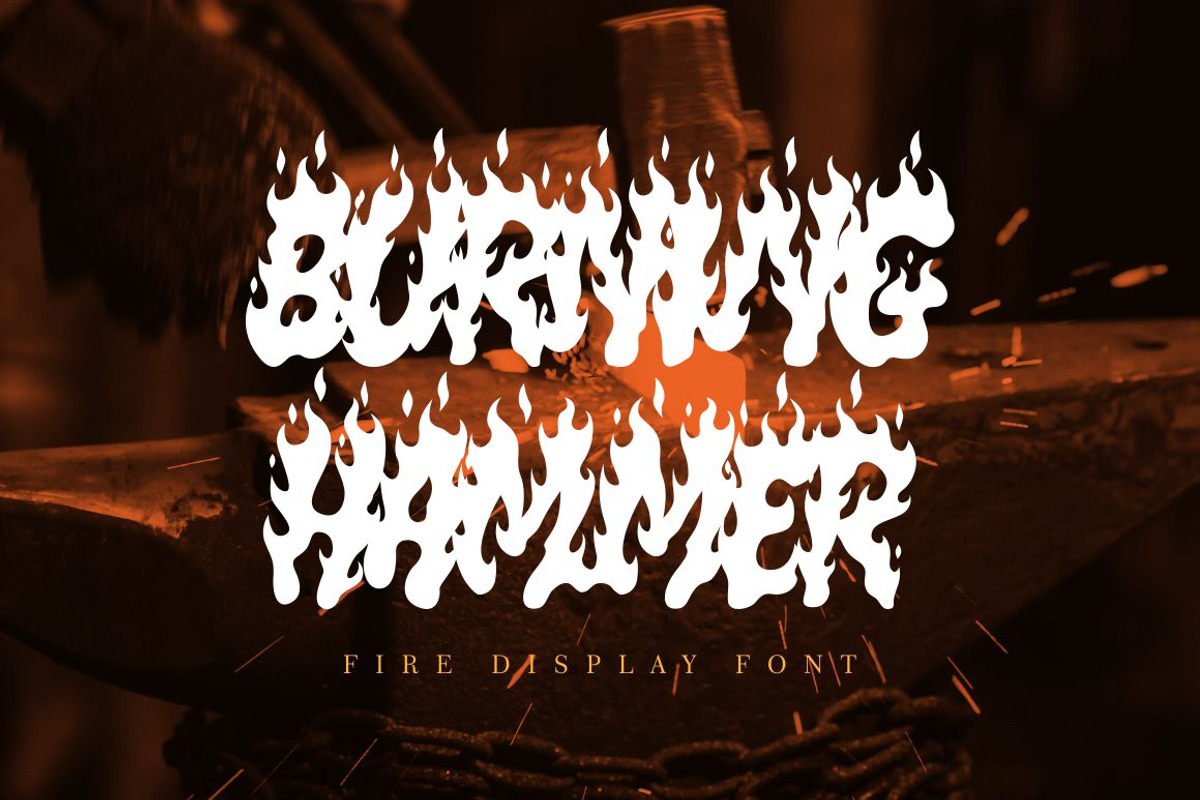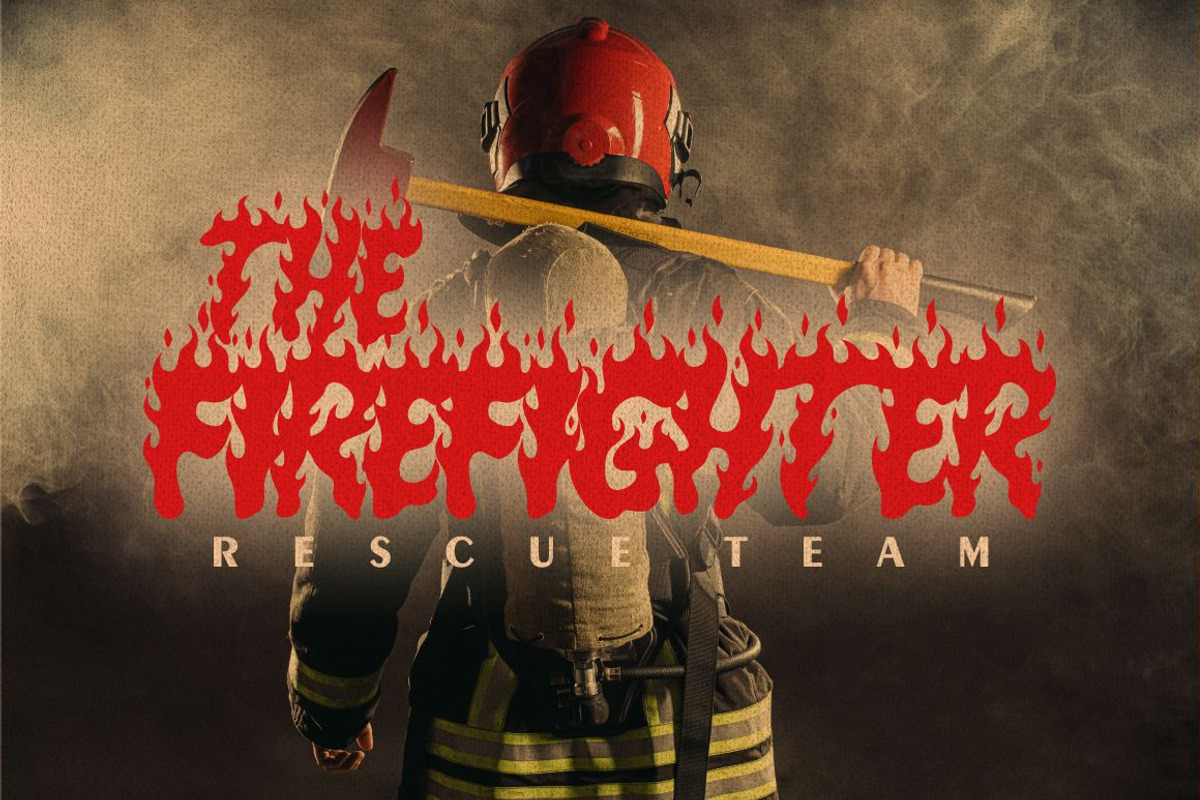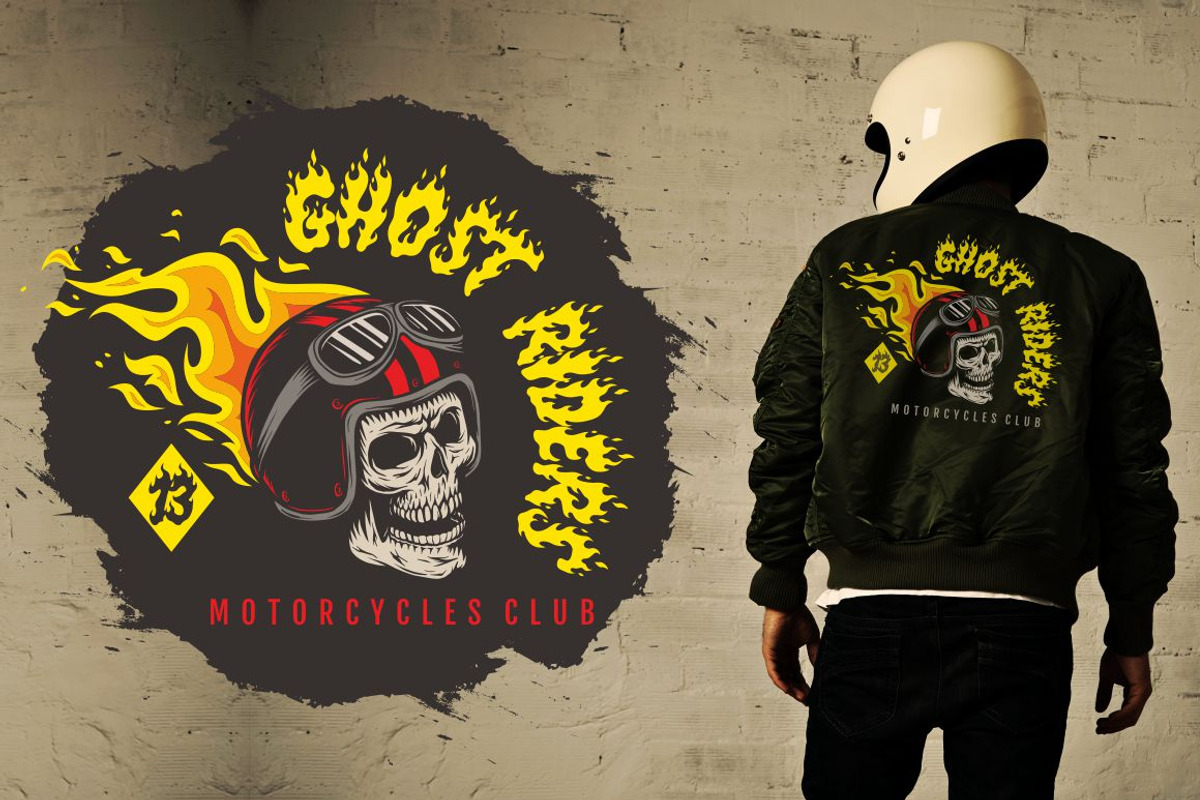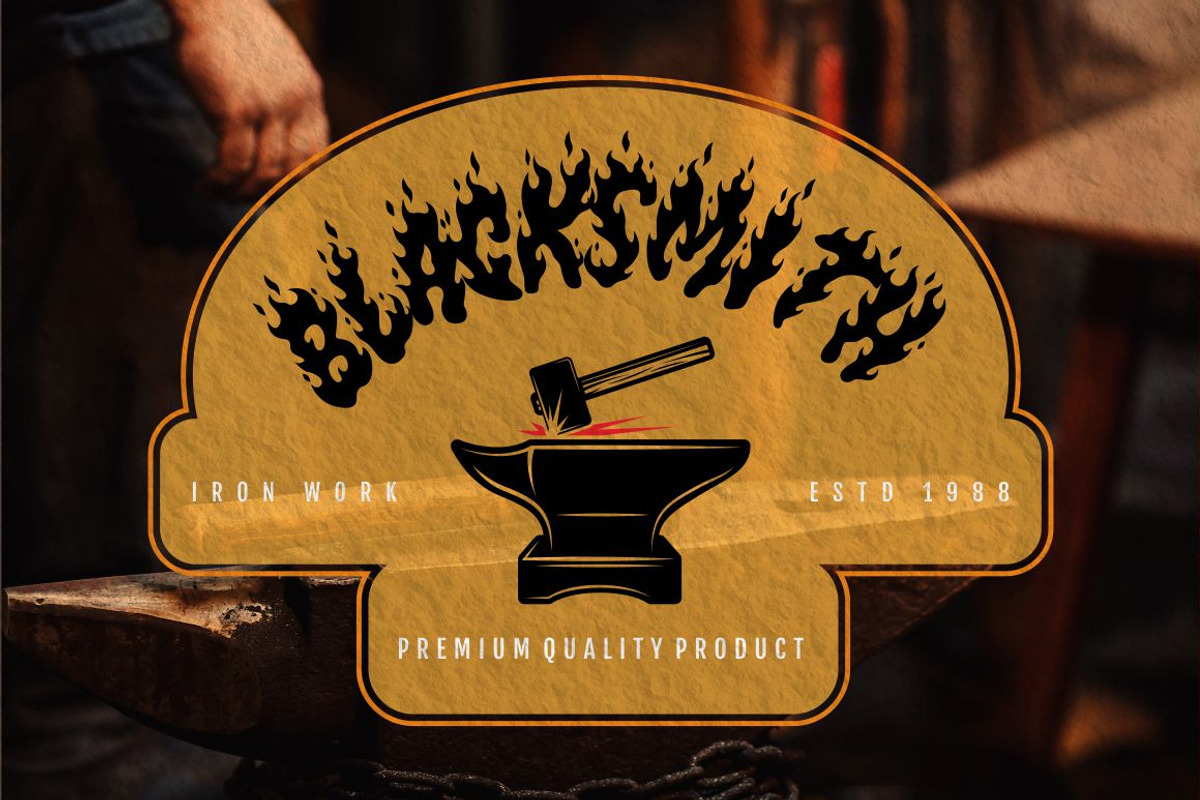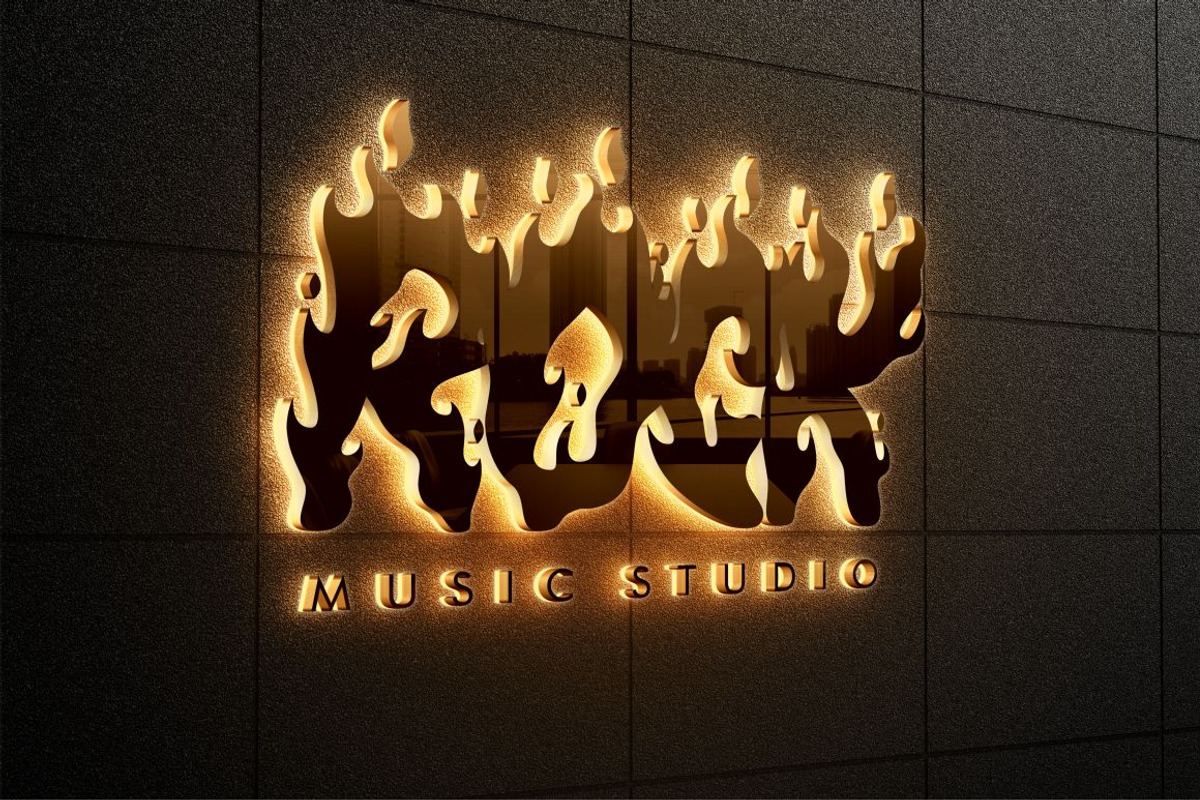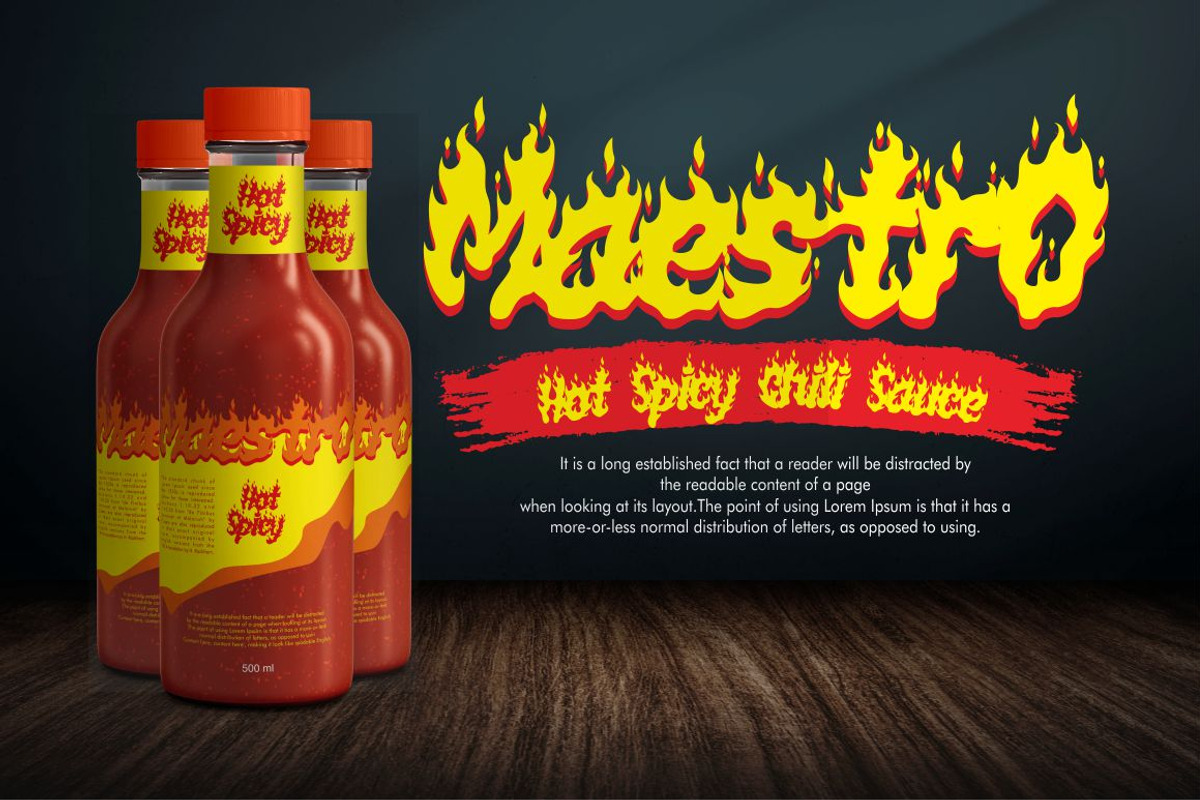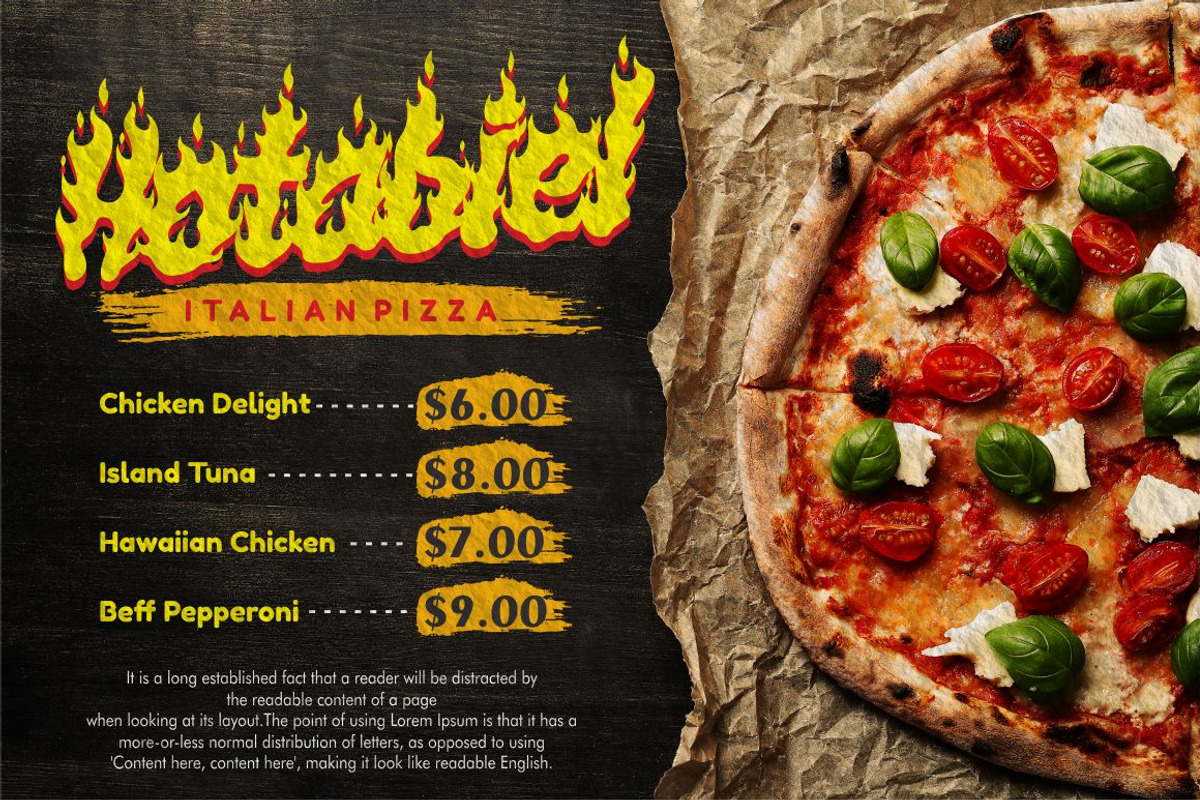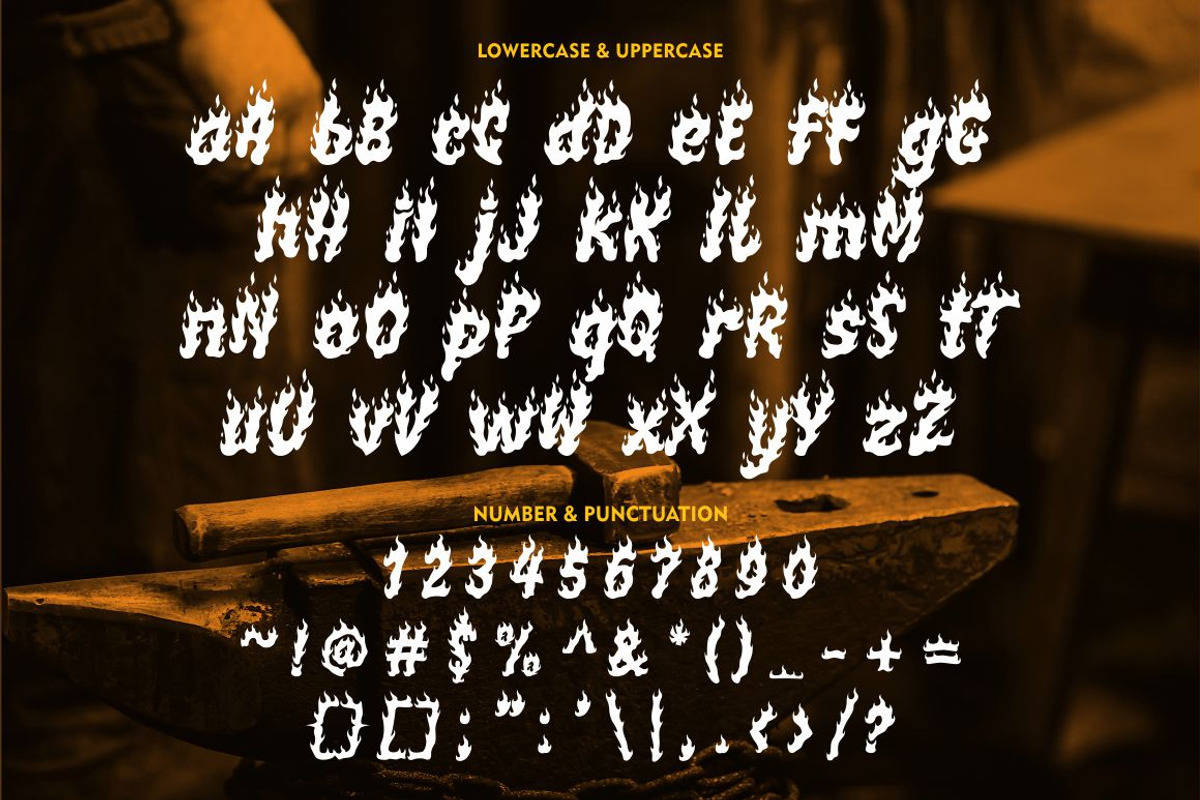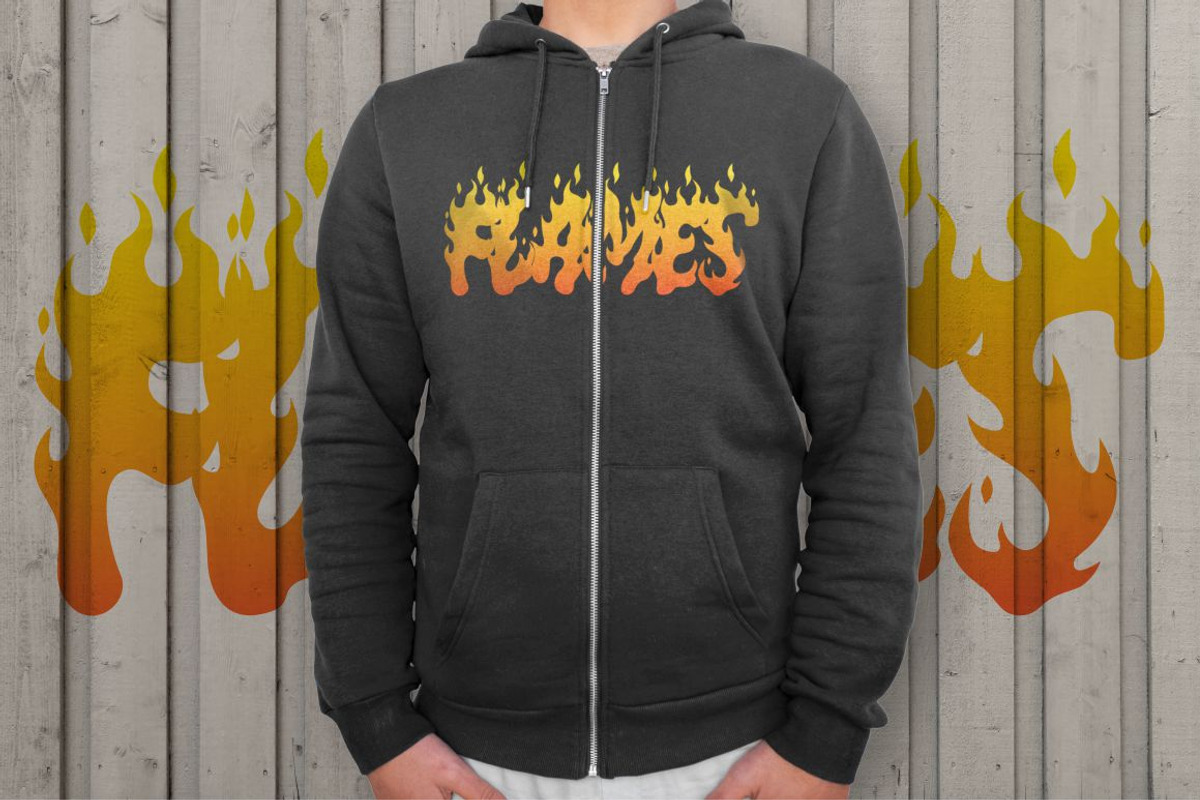
Burning Hammer - Fire Display Font
Burning Hammer
Burning Hammer is a fire display font. This font is inspired by the fire flame shape. There is a version of fire that has sparks on it and there is also one that doesn't, it becomes an alternate character in this font. In addition, this font also has a ligature that makes the fire impression of this font more real. With these variations, it will make it easier for you to create creativity for your project.
Burning Hammer would be perfect for branding, logo, product, title, quotes, doodle, comic, books, greeting cards, toys, posters, baby clothing, picture books, etc.